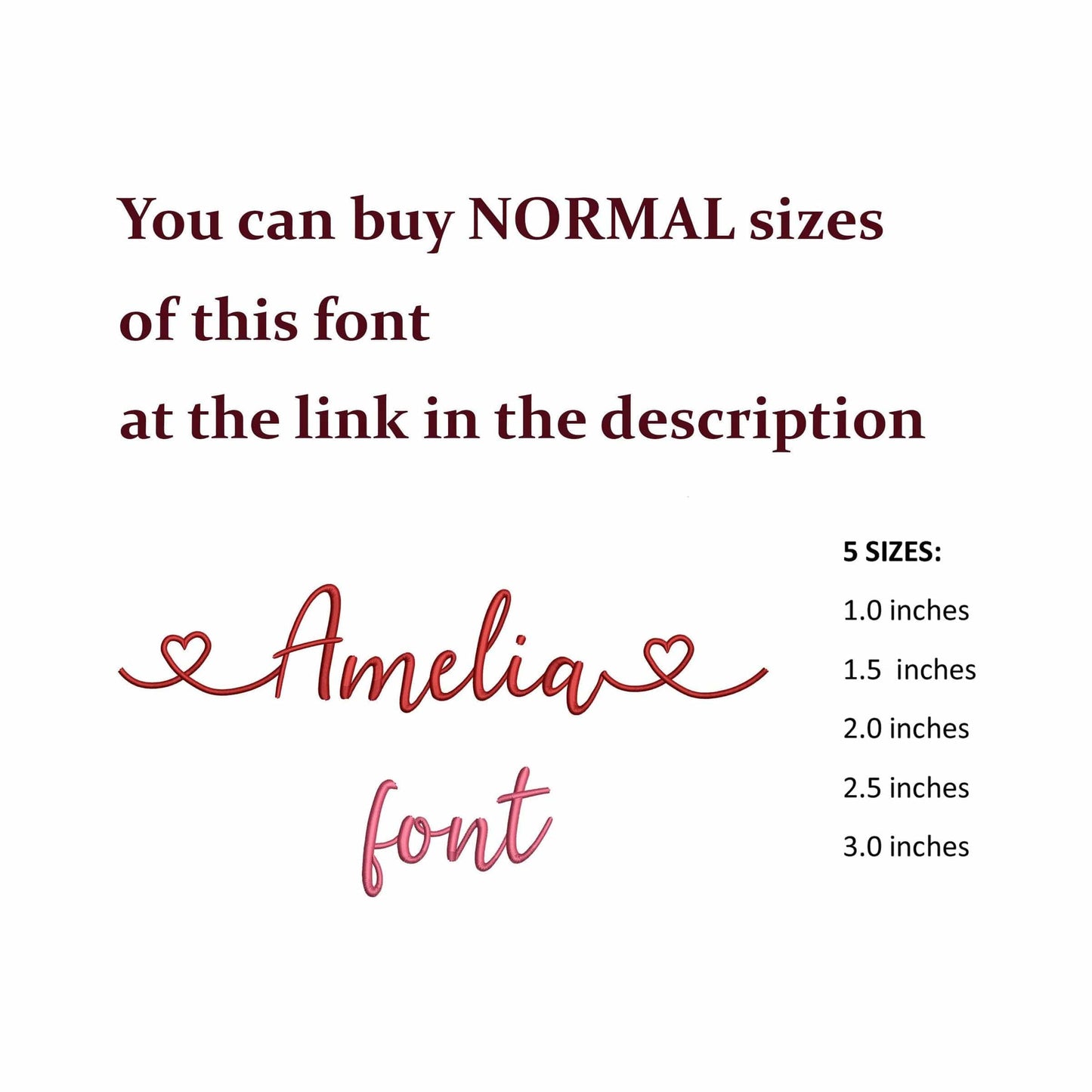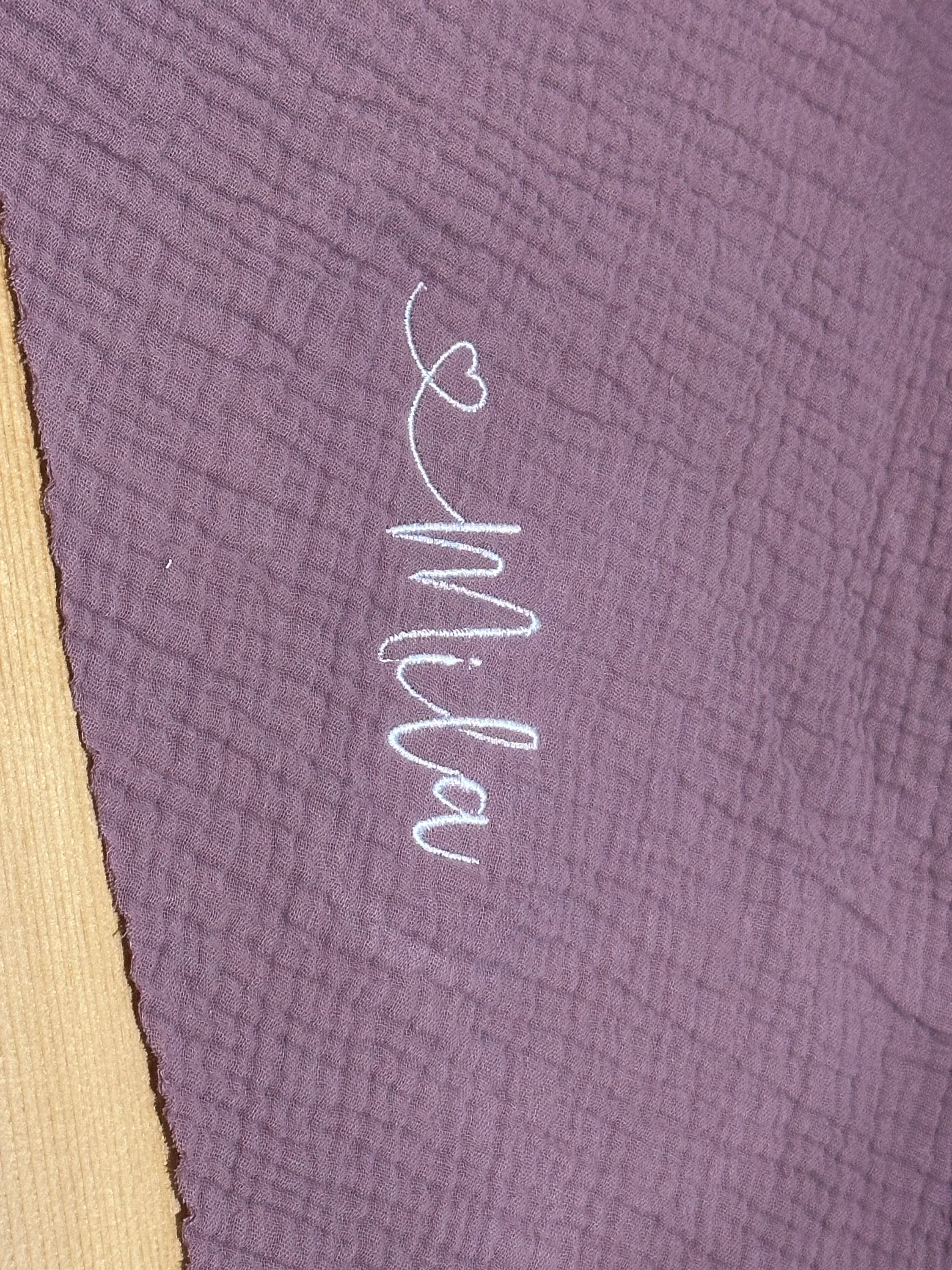
Amelia Large - Embroidery font
• Included: A-Z (uppercase), a-z(lowercase), heart
This large machine embroidery font works well for monograms, towels, blankets, tote bags, robes, and statement personalized embroidery.
A strong choice for makers who want oversized script lettering for bold names and large custom projects.